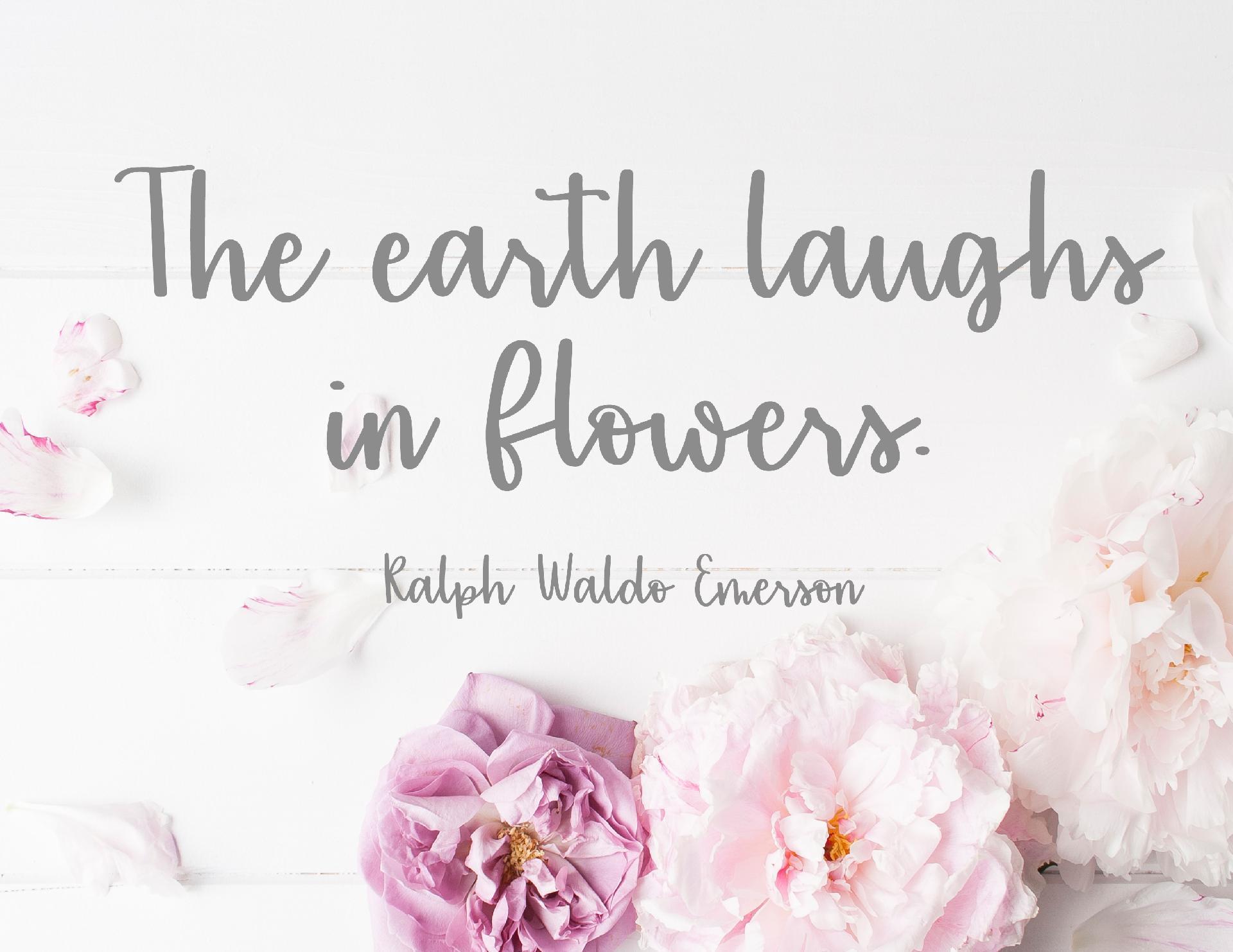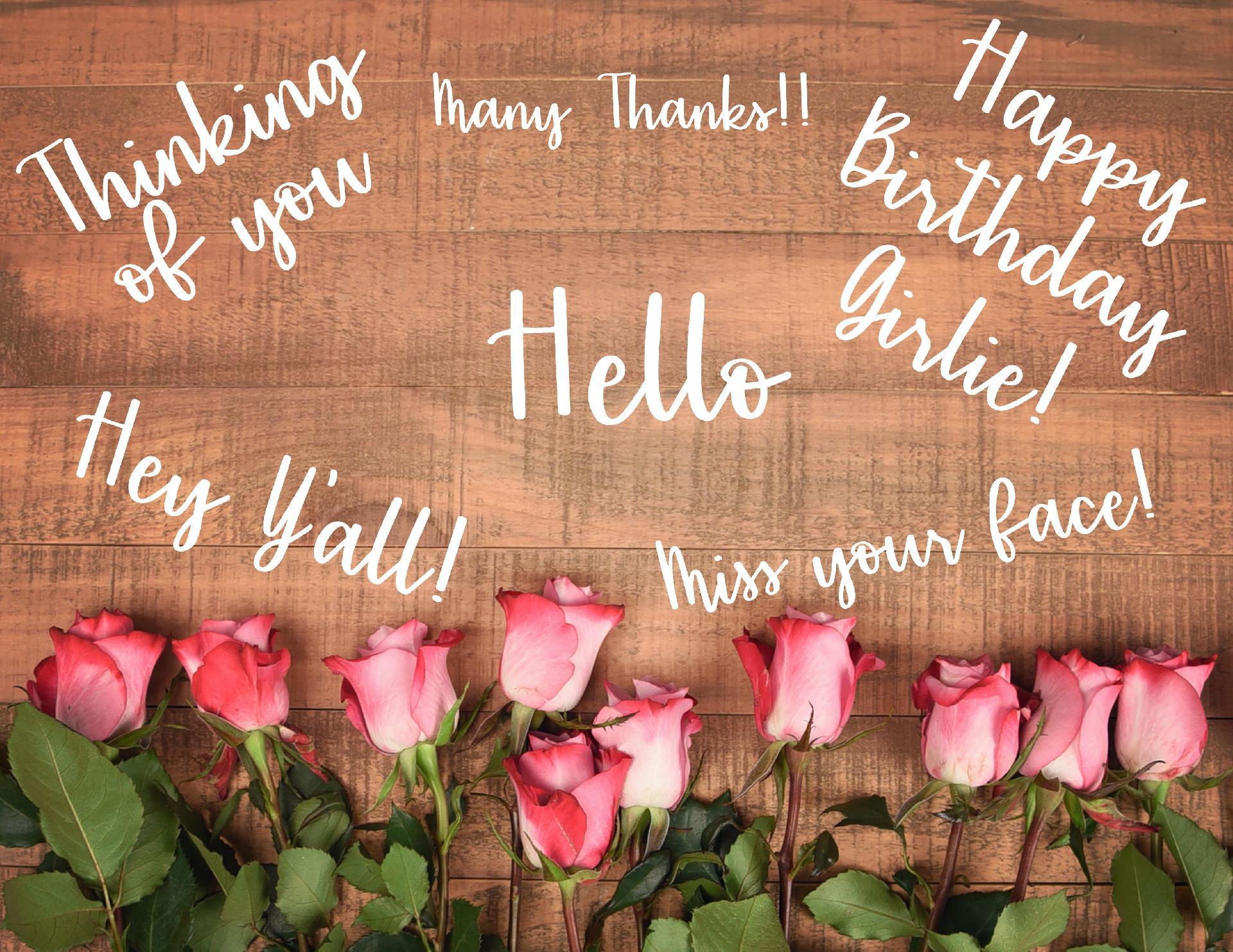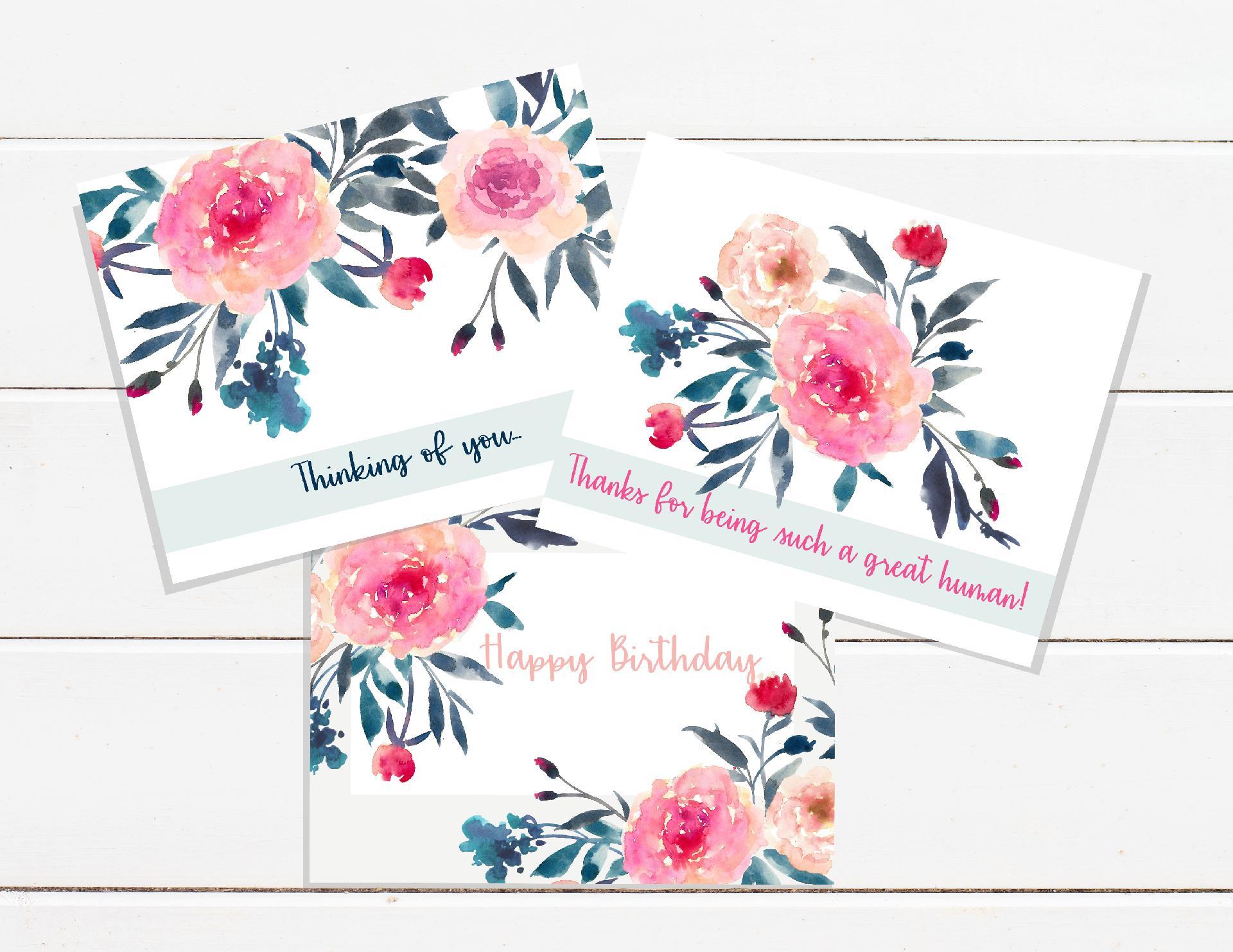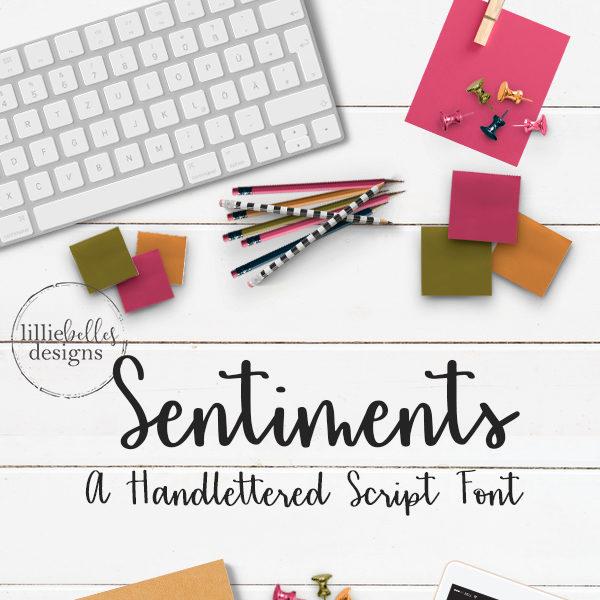
About Sentiments Font
Sentiments. A script hand written font. When I was thinking of a name for this font, it hit me that this font is perfect for cards, invitations, and printables. Of course, you can use it in any other project too! Express your sentiments with this lovely font. This font features: Uppercase and lowercase script characters Numbers, punctuation, and symbols Standard ligatures and special beginning characters .otf and .ttf files PUA encoded making this a cut-friendly font Enjoy!